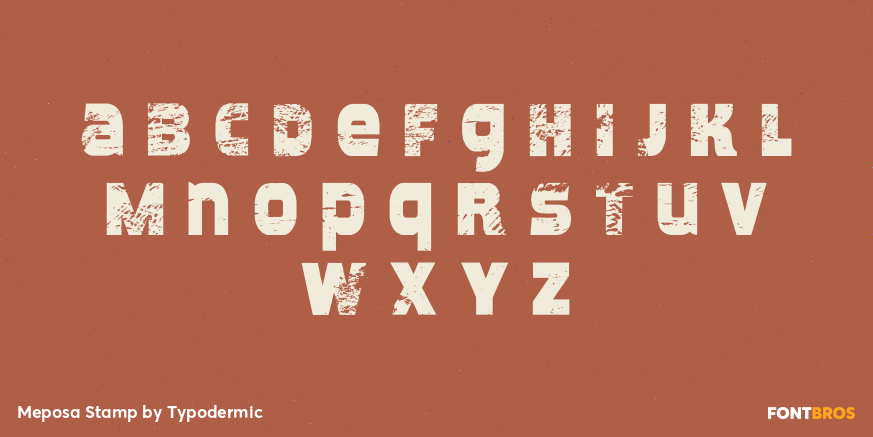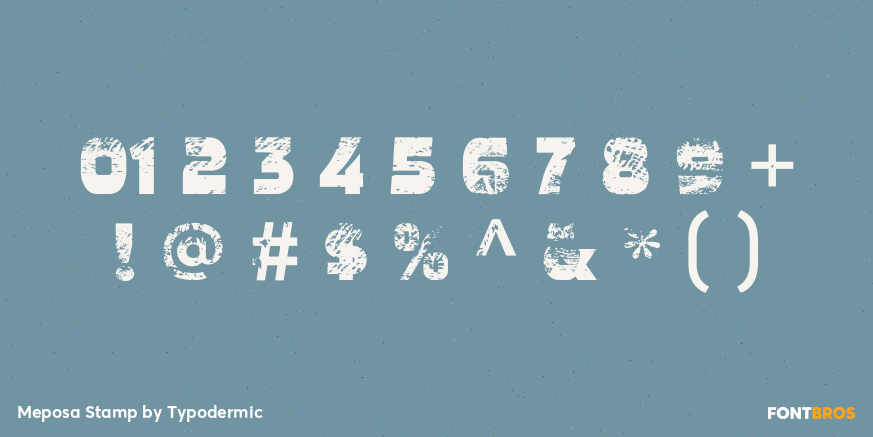
Meposa Stamp
Meposa Stamp keeps Meposa’s heavy, peculiar block forms but breaks their solid surfaces with irregular scuffs, flecks, and broad patches of missing ink. The result feels printed by a worn, imperfect stamp: rougher and more physical than ordinary Meposa, while the underlying retro-futurist silhouette remains clear.
Use Meposa Stamp for field-equipment model names, battered transport cases, outdoor-workwear graphics, repair-shop signage, trail-event posters, and packaging that should look handled rather than pristine. It is strongest in short display text at medium and large sizes, where the uneven ink texture reads clearly instead of closing up.
Meposa Stamp by Typodermic